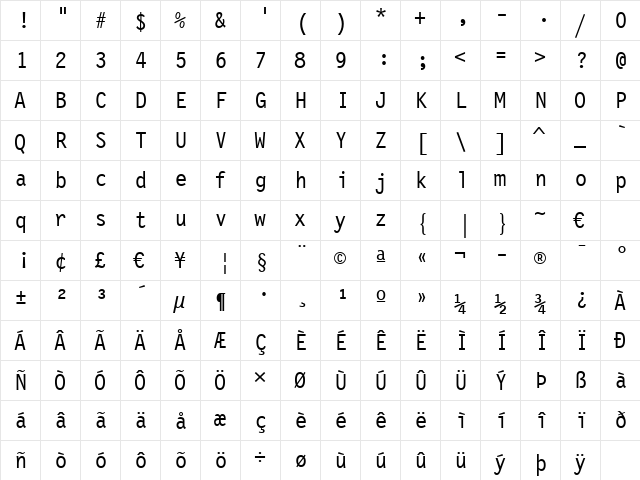
LettrGoth12 BT Roman
Design Context for LettrGoth12 BT Typeface
LettrGoth12 BT takes a measured approach to typography — its balanced proportions and neutral character make it a reliable workhorse for both digital and print work.